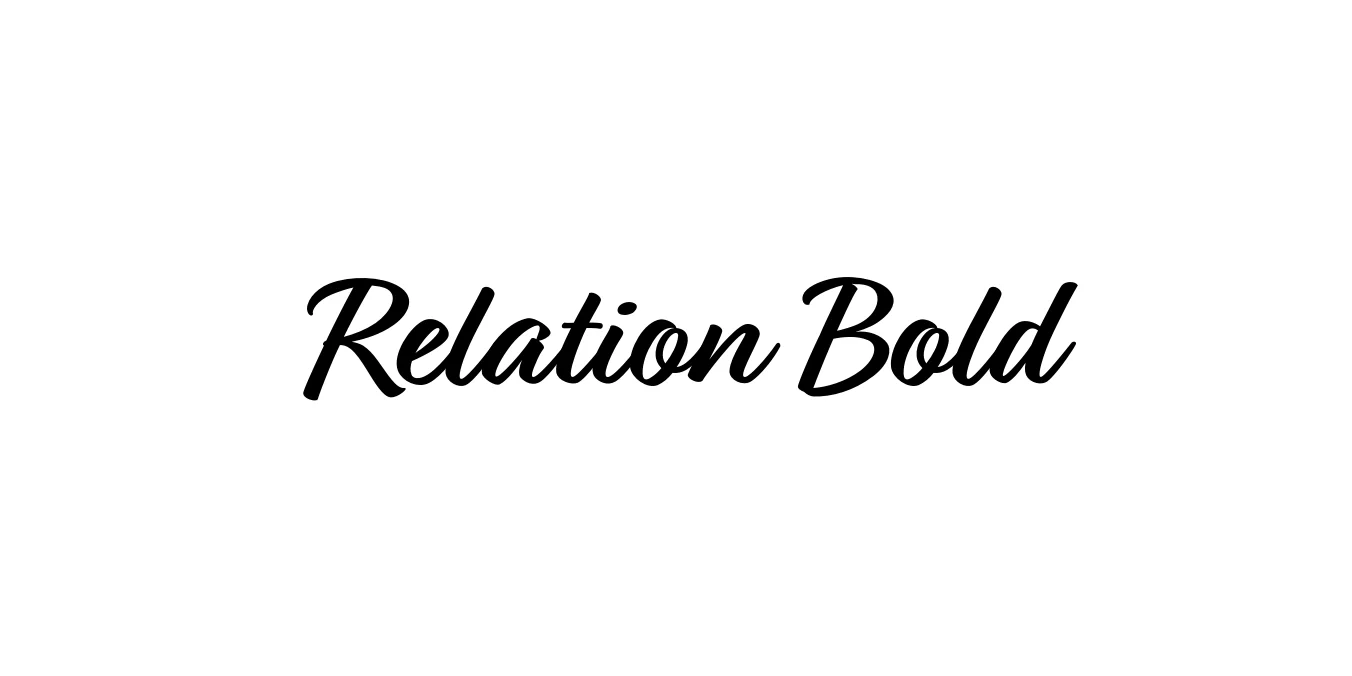
Relation Bold
Designed by Måns Grebäck
| Font Name | Relation |
| Designer | Måns Grebäck |
Relation Bold is a powerful and expressive brush script typeface created by the acclaimed Swedish font designer Måns Grebäck. This font is characterized by its heavy, confident strokes and fluid, hand-painted aesthetic, making it an excellent choice for designers who want to convey a sense of authenticity and motion. The bold weight ensures that it remains legible even at larger scales, providing a striking visual impact for any creative project.
Since its introduction, Relation Bold has been widely used in the worlds of advertising and apparel design. It features a comprehensive set of characters, including stylish ligatures and flourishes that allow for a truly customized calligraphic look. Whether used for a high-end luxury brand or a gritty, urban street-style graphic, this font bridges the gap between traditional craftsmanship and modern digital versatility.
Relation Bold Best Uses
Creating distinctive and memorable logos with a personal signature touch.
Perfect for t-shirt prints and urban clothing line graphics.
High-impact headlines for Instagram posts and YouTube thumbnails.
Bold titles for wedding invites, posters, and party announcements.